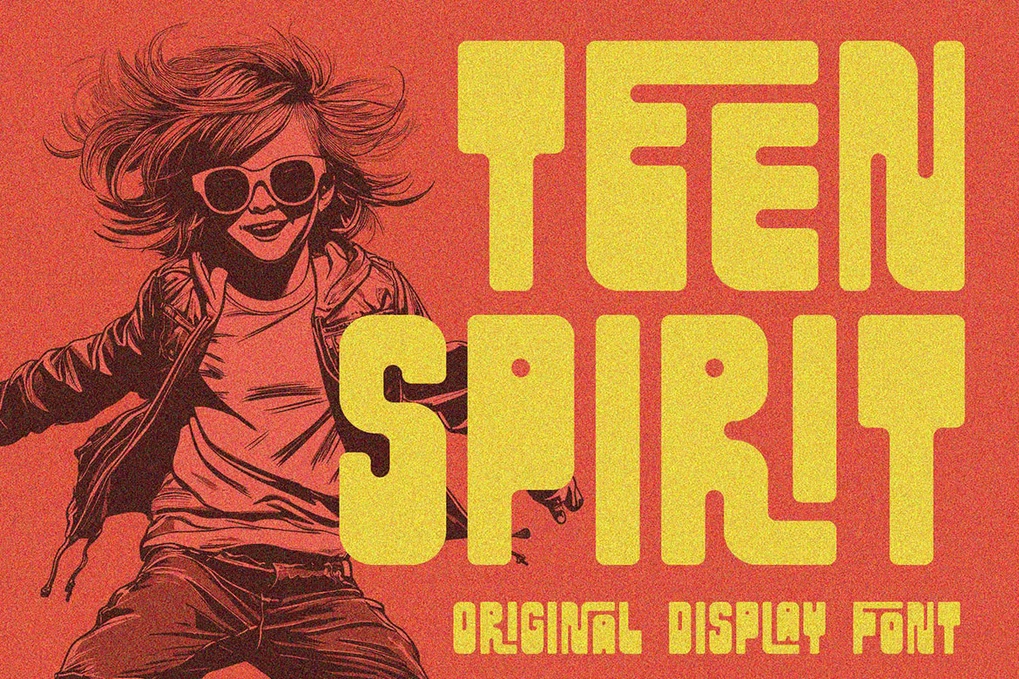
Teen Spirit – Ligature Display Font
Unique, bold, retro, rounded, playful, clean, groovy & label sans serif font. Comes with multilingual support & lot of ligatures – great for your new logo, monogram or branding project.
Multilingual support & 104 ligatures
Great for your new logo, monogram or branding project